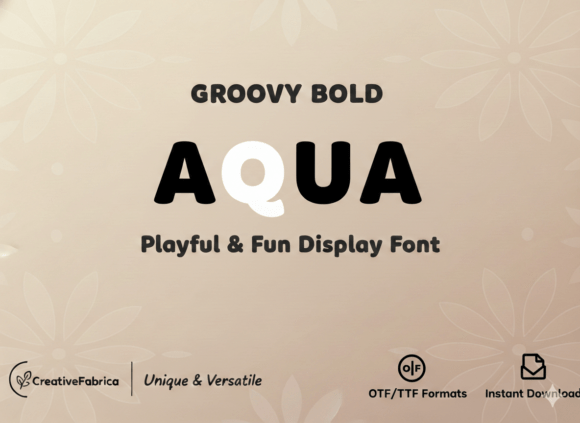
Aqua Font: The Playful and Fun Display Font for Creative Designs
Are you looking for a font that can add a touch of whimsical charm and modern flair to your designs? Look no further than Aqua Font, a playful and fun display font that’s perfect for headlines, posters, branding, and more. In this article, we’ll dive into the unique features of Aqua Font and explore how it can elevate your creative projects.
What is Aqua Font?
Aqua Font is a bold and friendly display font that’s designed to bring a unique and versatile touch to your designs. Its distinctive style is characterized by its playful and fun curves, making it an ideal choice for projects that need a touch of creativity and whimsy. Whether you’re designing a logo, creating a poster, or developing a brand identity, Aqua Font is the perfect choice.
Key Features of Aqua Font
- Playful and Fun Curves: Aqua Font features playful and fun curves that add a touch of whimsy to your designs.
- Bold and Friendly Character: The font has a bold and friendly character that makes it perfect for headlines, posters, and branding.
- Versatile and Unique: Aqua Font is a versatile font that can be used in a variety of design projects, from logos to social media graphics.
- Modern Flair: The font has a modern flair that makes it perfect for contemporary designs.
Uses of Aqua Font
Aqua Font is a versatile font that can be used in a variety of design projects, including:
- Headlines and Titles: Use Aqua Font to create bold and eye-catching headlines and titles.
- Posters and Flyers: The font is perfect for creating posters and flyers that need a touch of creativity and whimsy.
- Branding and Logo Design: Aqua Font can be used to create unique and memorable logos and brand identities.
- Social Media Graphics: Use the font to create engaging and shareable social media graphics.
- Packaging Design: Aqua Font can be used to create eye-catching packaging designs that stand out on store shelves.
Benefits of Using Aqua Font
There are several benefits to using Aqua Font in your designs, including:
- Unique and Memorable: The font’s distinctive style makes it unique and memorable, helping your designs to stand out.
- Versatile: Aqua Font can be used in a variety of design projects, making it a great addition to your font library.
- Easy to Read: Despite its playful and fun curves, Aqua Font is easy to read, making it perfect for headlines and titles.
- Modern and Fresh: The font’s modern flair makes it perfect for contemporary designs.
Tips for Using Aqua Font
Here are some tips for using Aqua Font in your designs:
- Use it Boldly: Aqua Font is a bold font, so use it boldly to make a statement.
- Experiment with Colors: The font looks great in a variety of colors, so experiment to find the perfect combination.
- Pair it with Other Fonts: Aqua Font can be paired with other fonts to create a unique and interesting design.
- Use it for Headlines: The font is perfect for headlines and titles, so use it to create bold and eye-catching text.
Aqua Font is a playful and fun display font that’s perfect for designers and crafters looking to add a touch of whimsical charm and modern flair to their designs. With its bold and friendly character, versatile style, and easy-to-read curves, Aqua Font is an ideal choice for a variety of design projects. Whether you’re designing a logo, creating a poster, or developing a brand identity, Aqua Font is the perfect choice. So why not give it a try and see how it can elevate your creative projects?